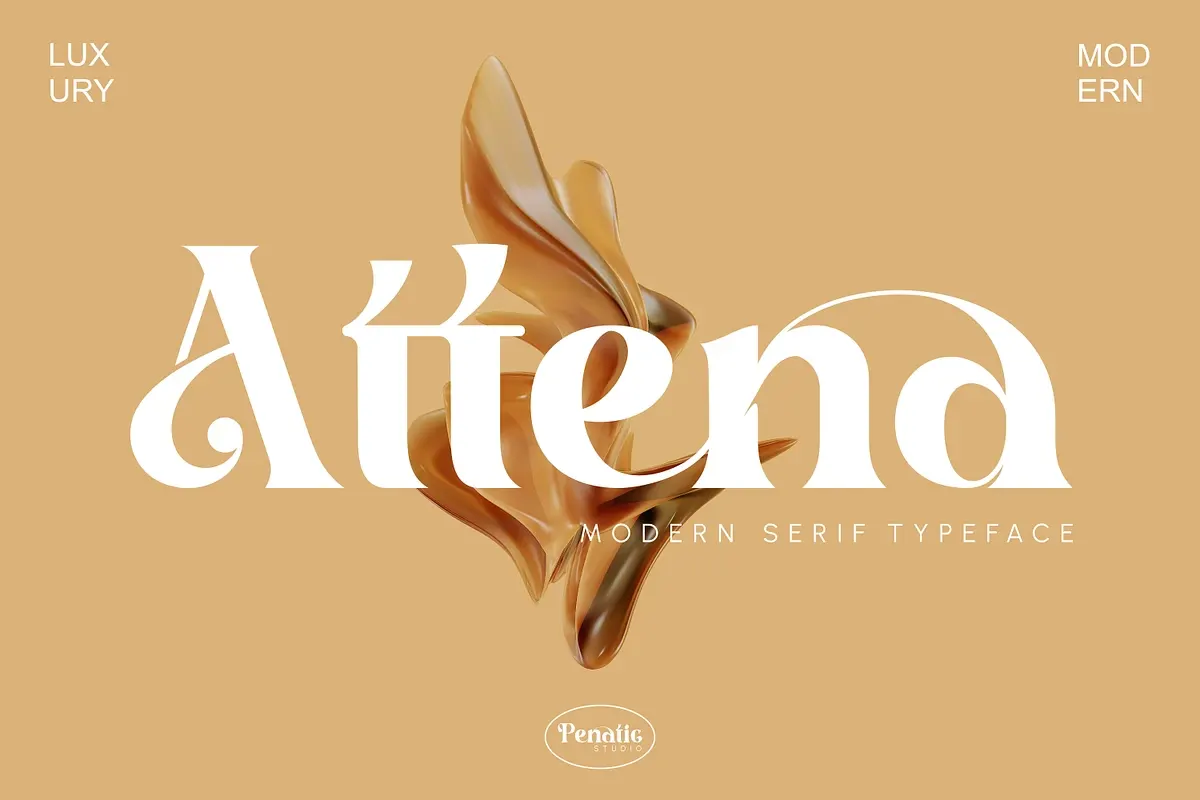
Attena _ modern serif typeface Free Download
Attena Modern Serif Typeface Free Download is a sophisticated and versatile serif font designed by Penatic Studio. With its modern touches and elegant design, Attena is particularly well-suited for luxury, elegant, and feminine projects. It's ideal for various applications, including branding, invitation cards, poster designs, and more.
Attena features a range of ligatures and alternative characters, providing users with numerous variations to enhance their designs. Its design includes a large x-height and wedge serifs, contributing to its stylish and contemporary appearance.